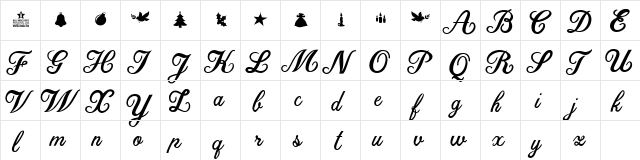
Christmas Time Personal Use Regular
| Foundry | Billy Argel |
| Designer | Billy Argel |
Design Context for Christmas Time Personal Use Typeface
Christmas Time Personal Use is a composed and adaptable typeface that performs quietly and consistently across a wide range of design contexts.